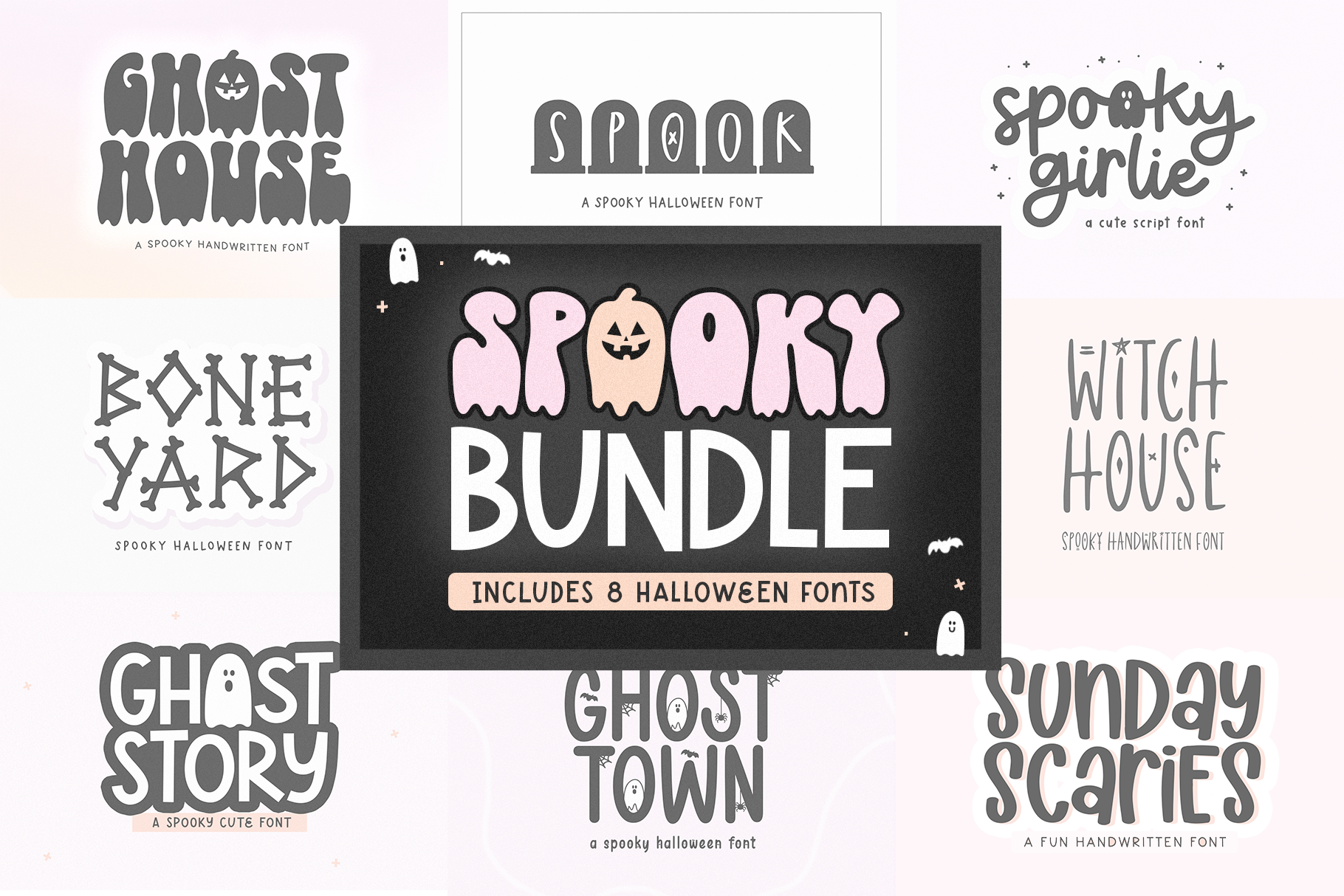
Spooky Halloween Font Bundle
The Spooky Halloween Font Bundle include 8 spooky cute fonts!
This bundle is perfect for creating halloween designs, quotes, social media, svg files, craft and cricut projects, logos, greeting cards, shirts, stickers, mugs and more!
Fonts Included
- Ghost House
- Spooky Girlie
- Ghost Story
- Witch House
- Ghost Town
- Boneyard
- Sunday Scaries
- Spook